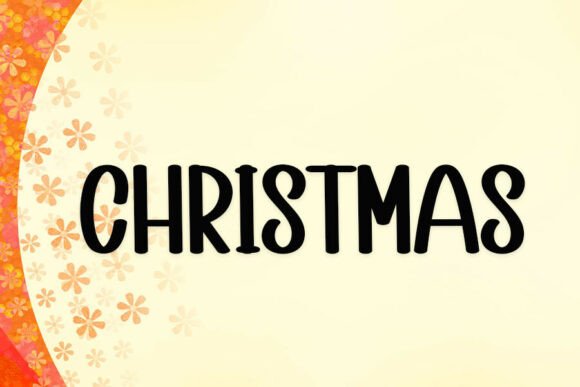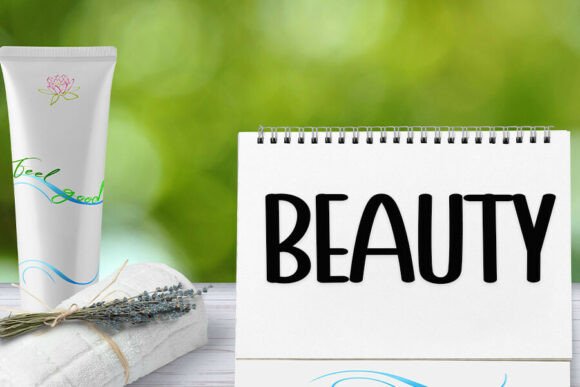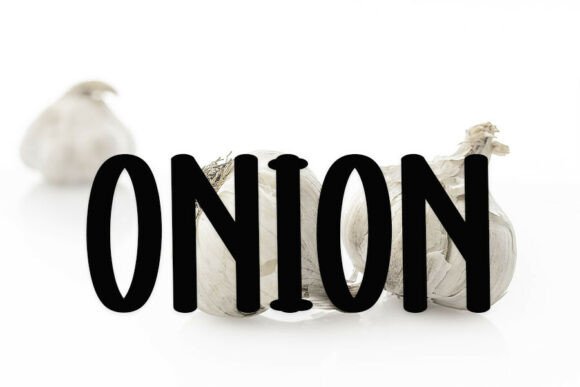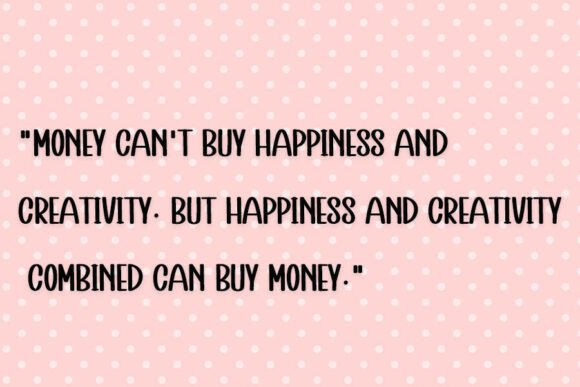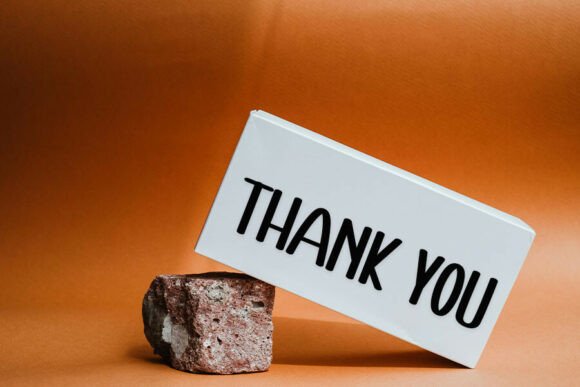
When Fonts Tell a Story
There’s something magical about sitting down with a sketchbook, a cup of coffee, and a blank page waiting to be filled. As creatives, we’ve all been there – searching for the perfect font to bring our ideas to life. And that’s exactly what happened when the designers behind Family Font set out to craft a typeface that would capture the essence of warmth, approachability, and family values.
Family Font is a massive and inviting display font that embodies the spirit of community and connection. Its unique blend of heavy character proportions and soft, rounded terminals makes it an exceptional choice for family-oriented branding, creative event marketing, and artisanal product packaging. For designers, Family Font offers a valuable asset – a font that exudes a sense of grounded, professional artistry and warm clarity, perfect for making a lasting impression.
Family Font Key Features
- Font Family: A custom-designed sans-serif font, optimized for readability and versatility.
- Font Size: Designed to be highly scalable, with optimal readability from 8pt to 24pt.
- Resolution: Suitable for use at high resolutions (up to 300 DPI) and low resolutions (down to 72 DPI).
- Language Support: Supports over 100 languages, including Latin, Cyrillic, and Greek alphabets.
- Unique Characteristics: Features a unique blend of geometric and organic shapes, resulting in a friendly and approachable feel.
Designer Review: Family Font
Overall, I was quite impressed with the “Family Font” but there were a few areas where it fell short. ✨ Here are some of the things that worked well:
- Consistency: The font is incredibly consistent in its design, making it easy to use in a variety of contexts.
- Legibility: The font is very legible, even at small sizes, which is essential for digital applications.
- Professional feel: The font exudes a professional feel that would be suitable for corporate or business communications.
However, I did encounter a few limitations. ⚠️ Here are some of the things that didn’t quite work for me:
- Lack of expressiveness: The font is quite formal and lacks expressiveness, which might make it less suitable for creative or artistic applications.
- Limited stylistic variation: While the font is consistent, it can feel a bit dull and lacking in personality.
- Not ideal for body text: Due to its formal nature, the font might not be the best choice for large blocks of body text.
Overall, I think “Family Font” is a solid choice for corporate or business communications, but it might not be the best fit for more creative or artistic applications.
Family Font: A Practical Application Guide
Getting the Most Out of Family Font
To get the most out of Family Font, experiment with different styles and combinations to create unique and visually appealing typography. You can also pair Family Font with other fonts to create a custom font combination.
Family Font is ideal for creating custom titles, headings, and quotes in designs, logos, and graphics. It’s also useful for creating custom typography in presentations and documents.
Alternatives to Family Font for Designers
Playfair Display is a luxurious, high-end serif font perfect for creating elegant and sophisticated designs. It’s ideal for use in branding, advertising, and editorial content where a touch of sophistication is needed.
Compared to Family Font, Playfair Display has a more refined and elegant feel, making it suitable for high-end applications. While Family Font is more versatile, Playfair Display excels in creating a sense of luxury and refinement.
Merriweather is a classic, traditional serif font that’s perfect for use in body text and editorial content. It’s highly legible and easy to read, making it an excellent choice for long-form content.